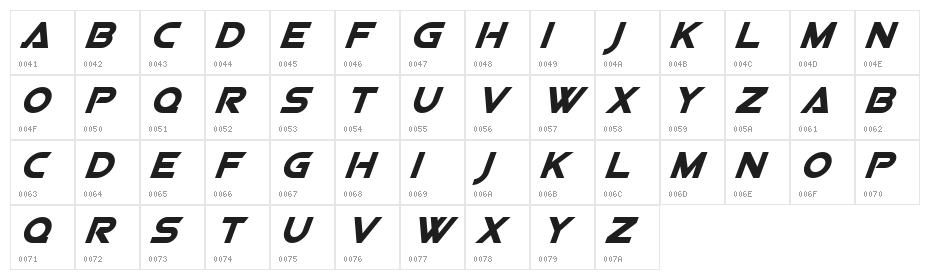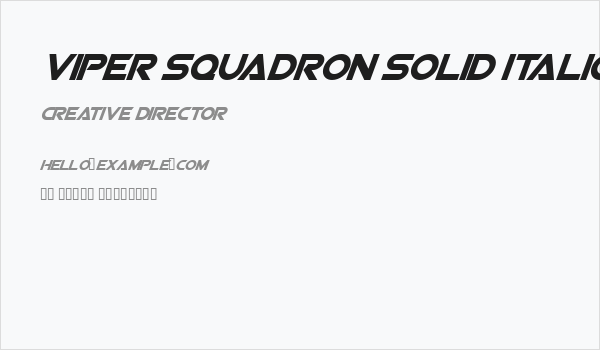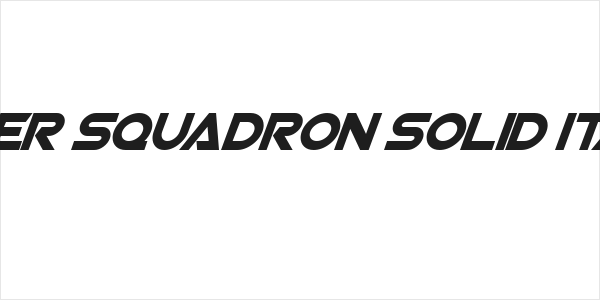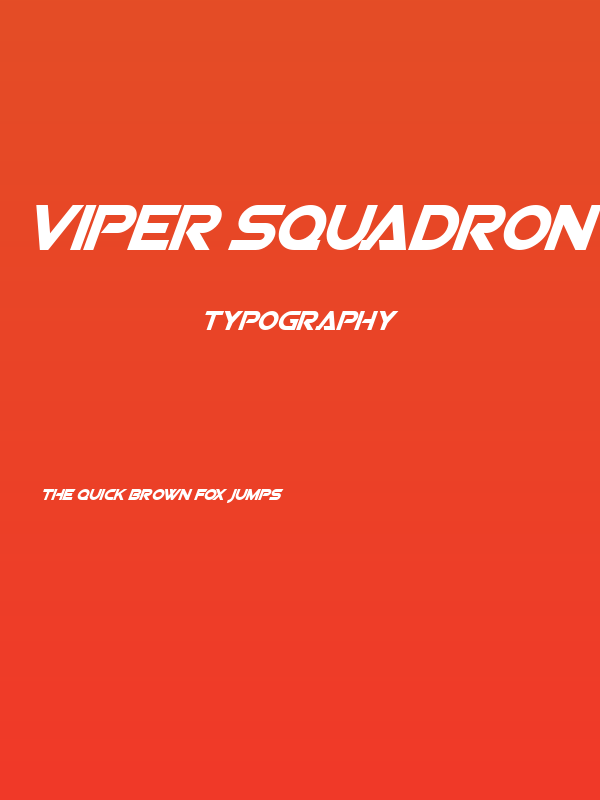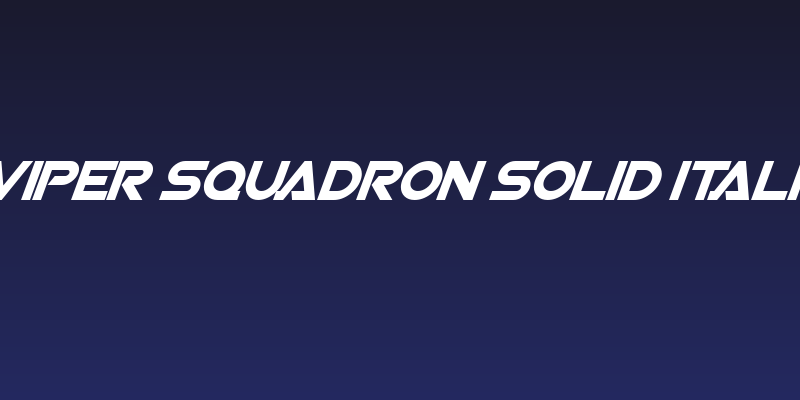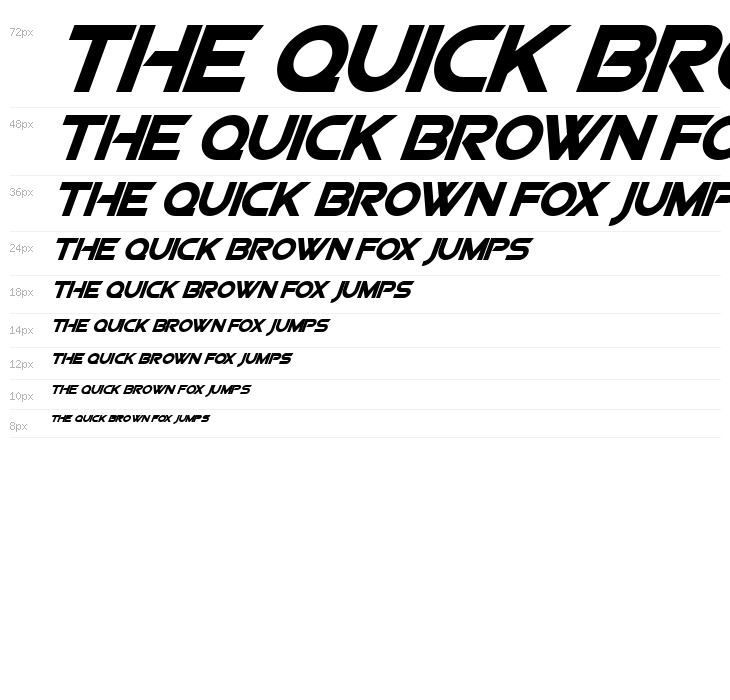
Viper Squadron Solid Italic Font
Viper Squadron Solid Italic Description
This font features a bold and dynamic style with a strong italic slant, giving it a sense of motion and energy. The characters are designed with sharp angles and clean lines, creating a futuristic and aggressive appearance. The uppercase letters are particularly striking, with a uniform height and consistent spacing that enhances readability. The absence of lowercase letters and special characters suggests a focus on impactful display use. The overall design is sleek and modern, making it suitable for projects that require a bold statement.
| Proposed Projects | Ideal for use in video game titles, movie posters, sports team branding, and any project requiring a bold, modern aesthetic. |